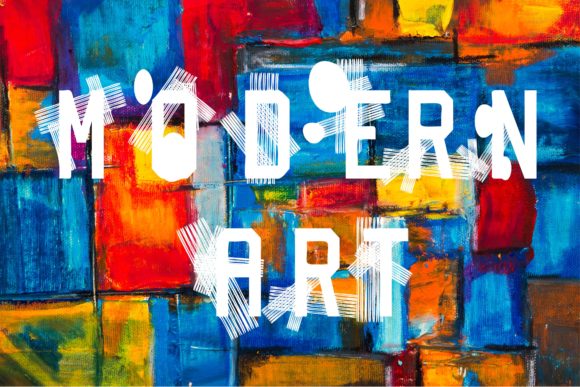
Prepare to be captivated by the enigmatic beauty of Modern Art Font! This extraordinary display font family, lovingly crafted by the visionary KtwoP, is more than just a collection of letters; it's an invitation to unleash your creativity and ignite your imagination.
Modern Art Font is the epitome of originality, where each character dances with a unique charm. Its playful, quirky nature will add a touch of whimsy to your designs, while its authentic spirit will lend an air of credibility to your projects.
With Modern Art Font at your fingertips, you'll discover a realm of endless possibilities. Transform your social media posts into eye-catching masterpieces, let your branding shine with distinction, or create captivating logos that leave an unforgettable impression.
But Modern Art Font's allure extends beyond its aesthetics. Its exceptional legibility ensures that your message will be conveyed with crystal clarity. Whether you're crafting a captivating website, a thought-provoking blog post, or a persuasive marketing campaign, this font will ensure your words resonate with impact.
Immerse yourself in the captivating world of Modern Art Font. Let its playful spirit inspire your designs, its authenticity lend credibility to your projects, and its exceptional legibility elevate your communication. With this remarkable display font, you'll turn your creative visions into captivating realities. Embrace the enchantment, embrace Modern Art Font.